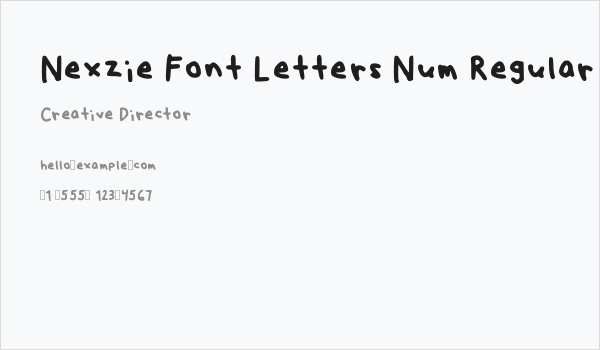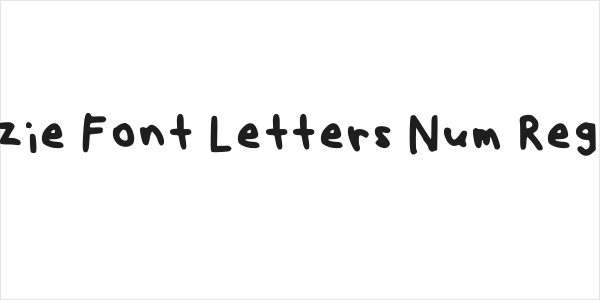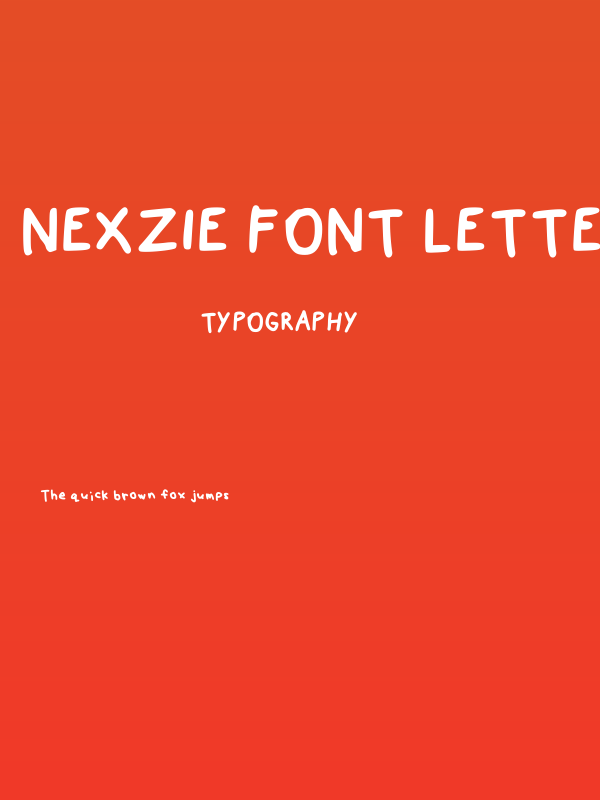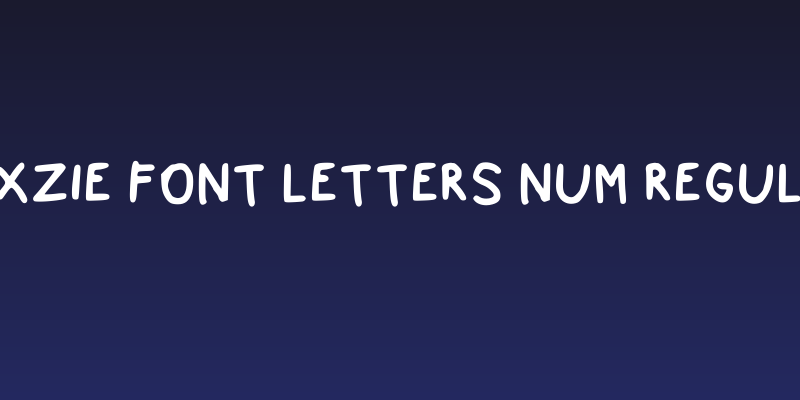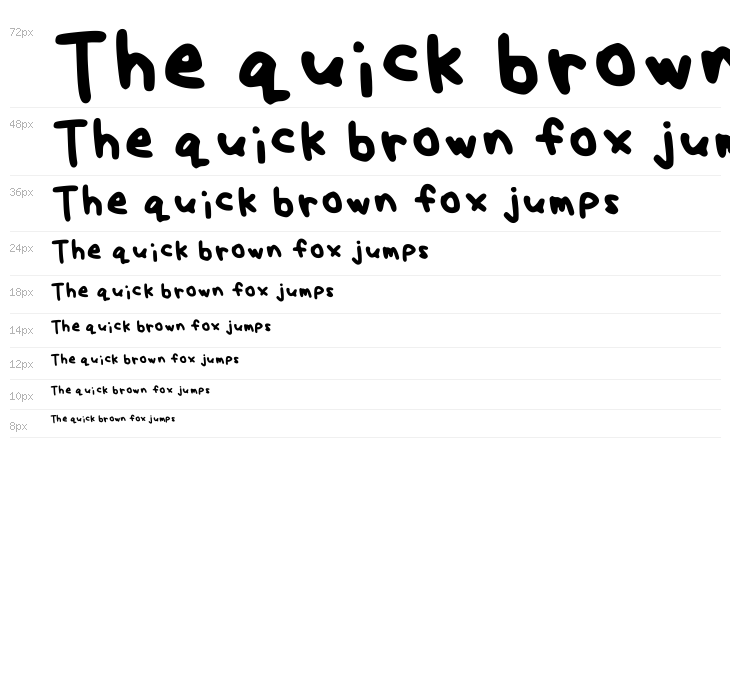
Nexzie Font Letters Num Regular Font
Nexzie Font Letters Num Regular Description
This font features a playful and casual handwritten style, characterized by its rounded and slightly irregular letterforms. The strokes are bold and consistent, giving it a friendly and approachable appearance. The uppercase and lowercase letters maintain a uniform style, with a slight tilt that adds to its informal charm. The numerals are clear and easy to read, matching the overall aesthetic of the alphabet. The special characters are designed to blend seamlessly with the rest of the font, ensuring versatility in various applications. This font is ideal for projects that require a personal touch or a relaxed vibe.